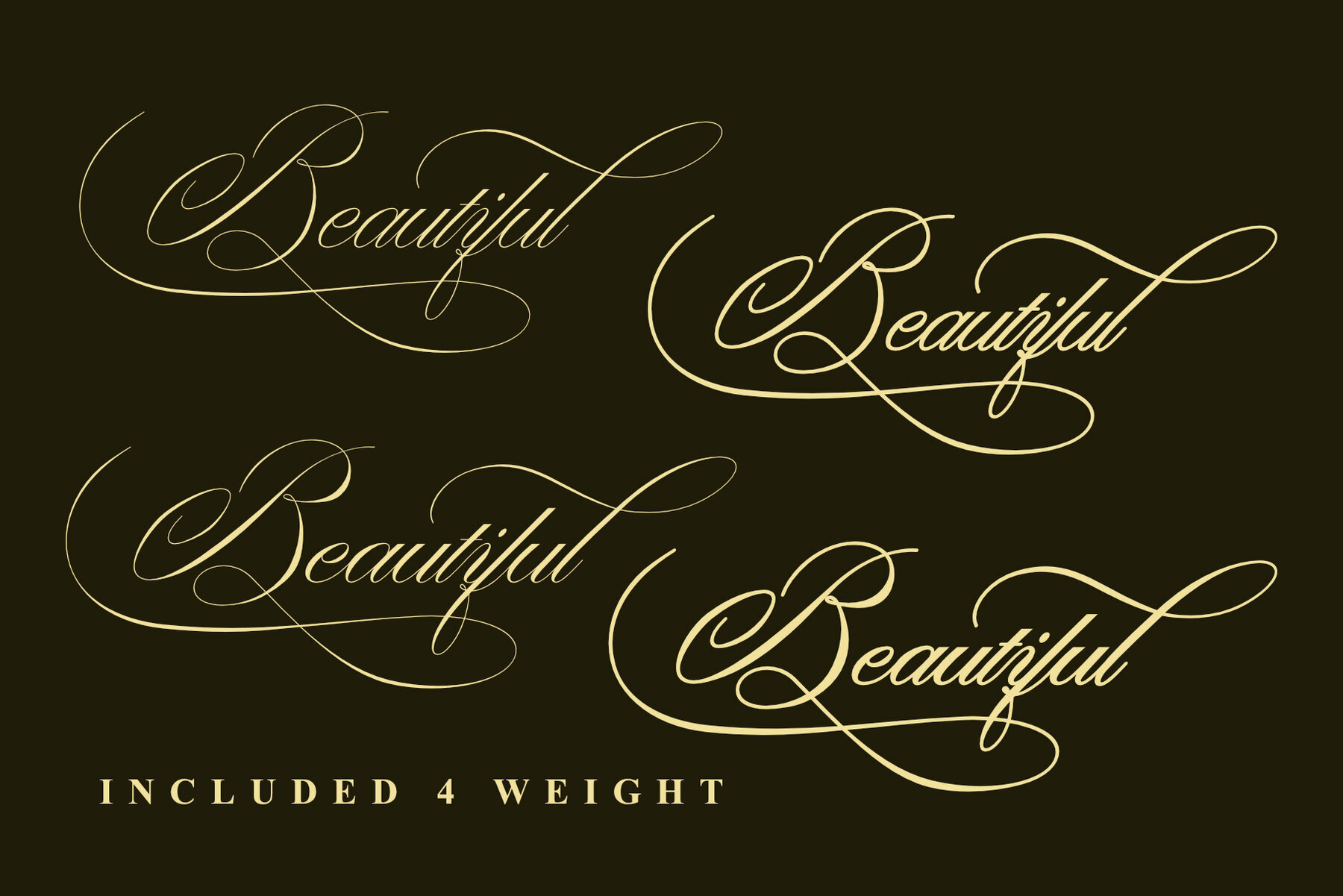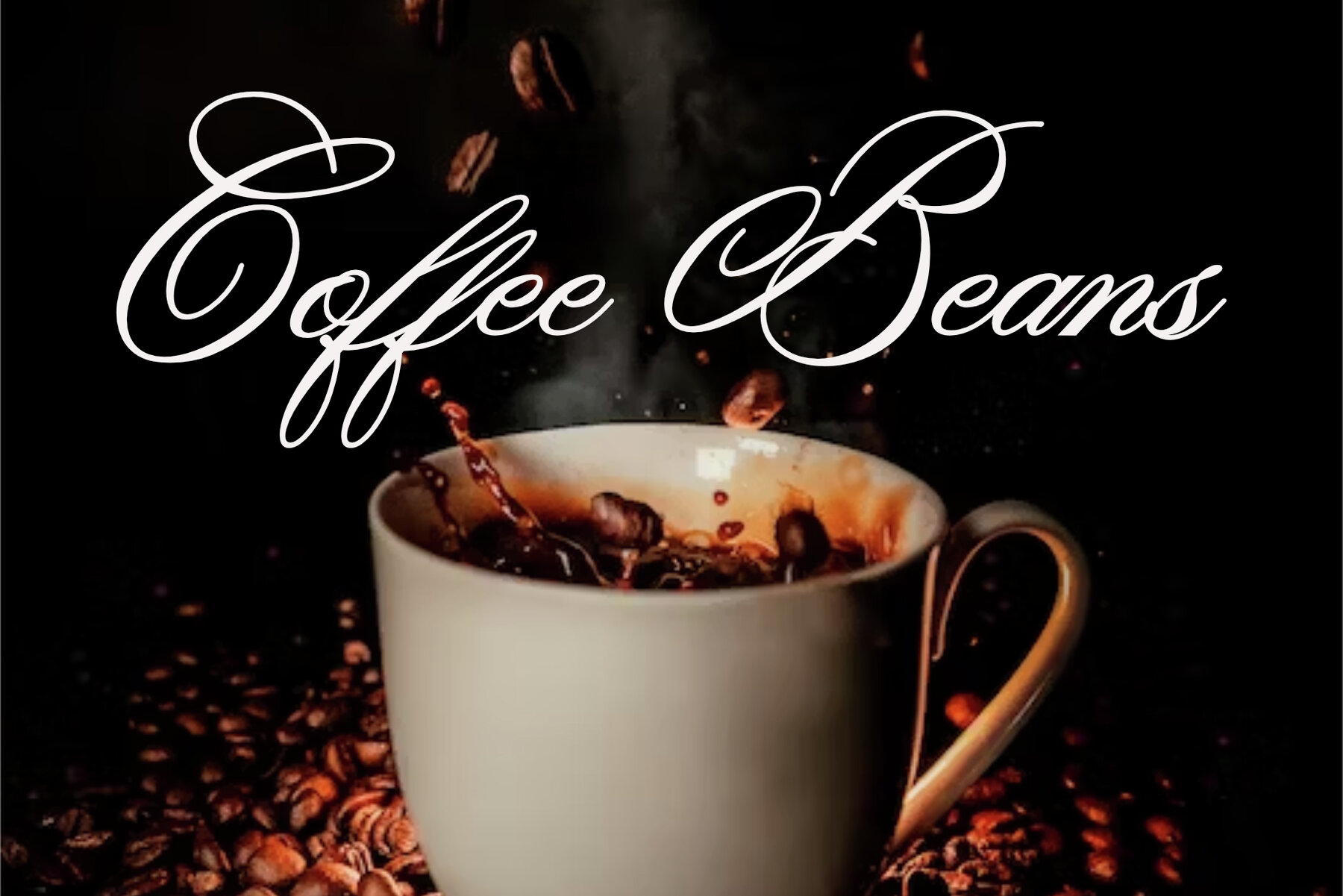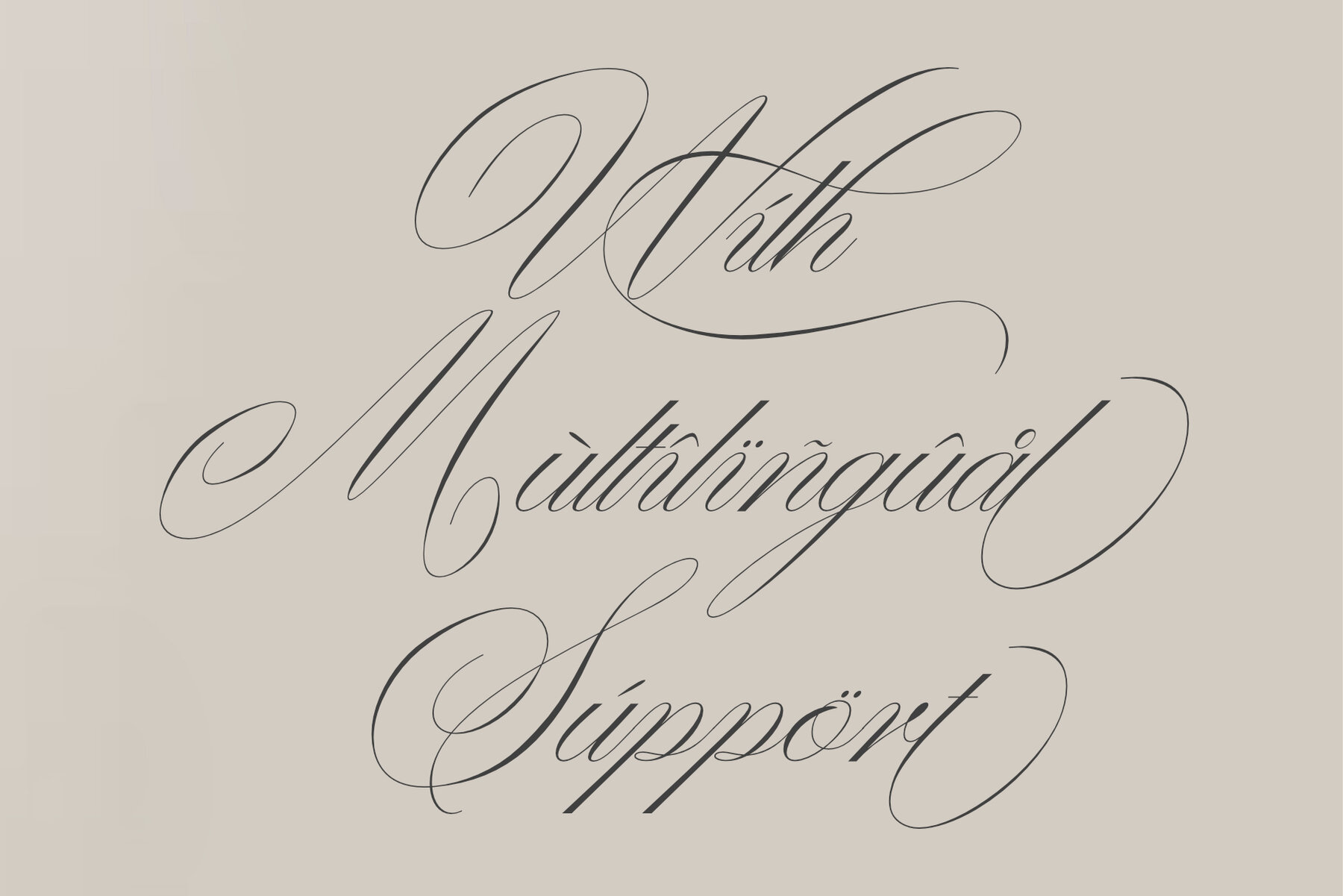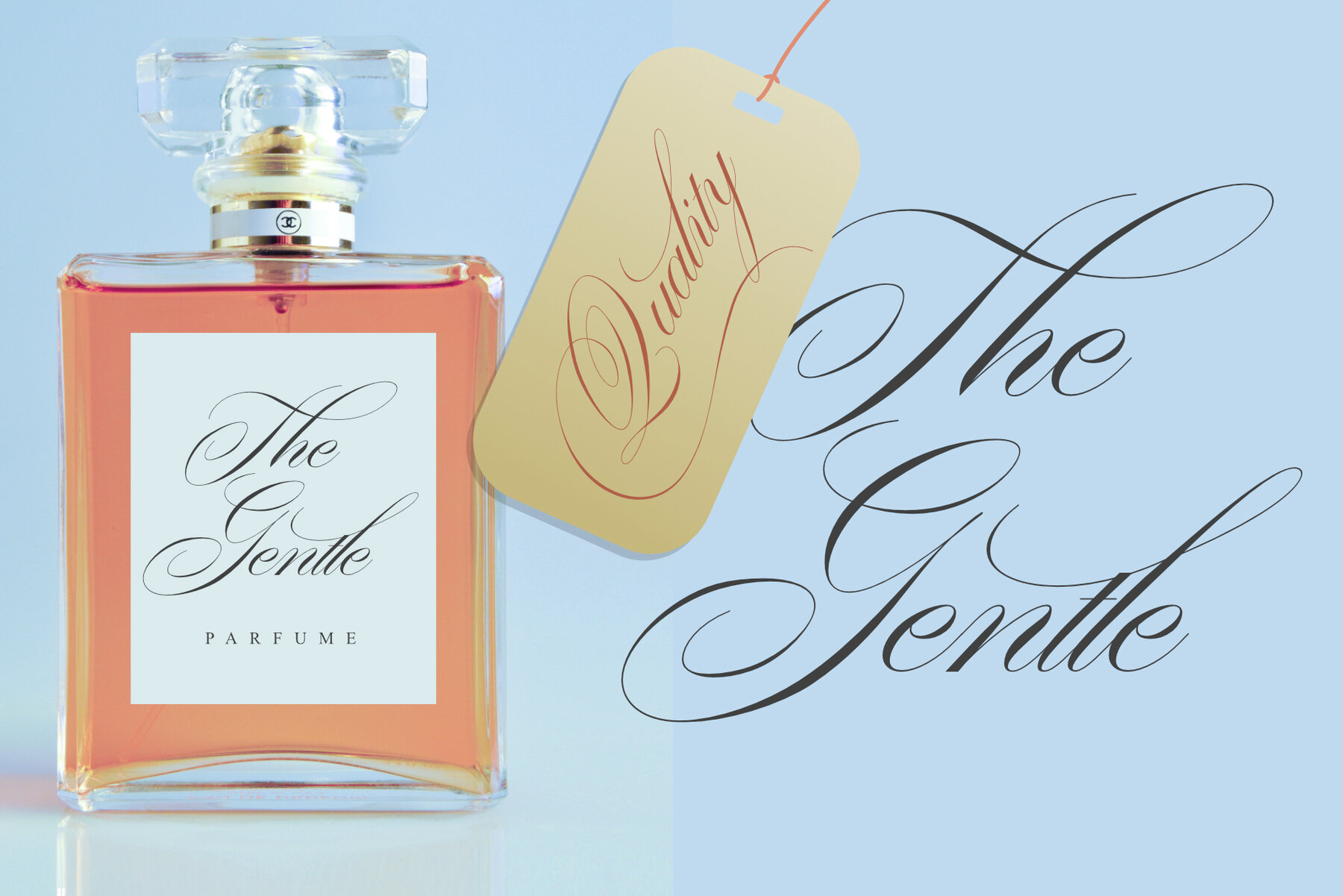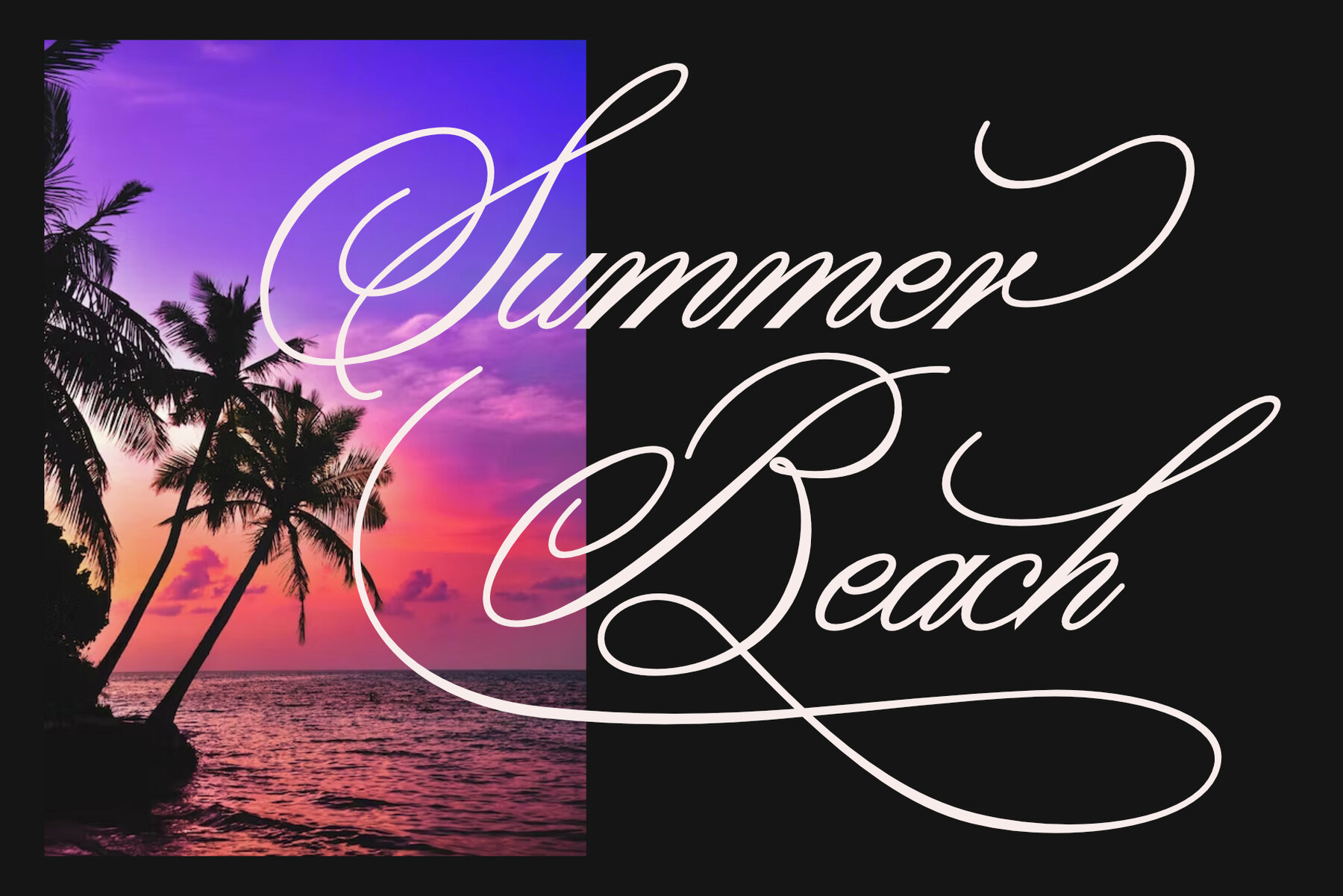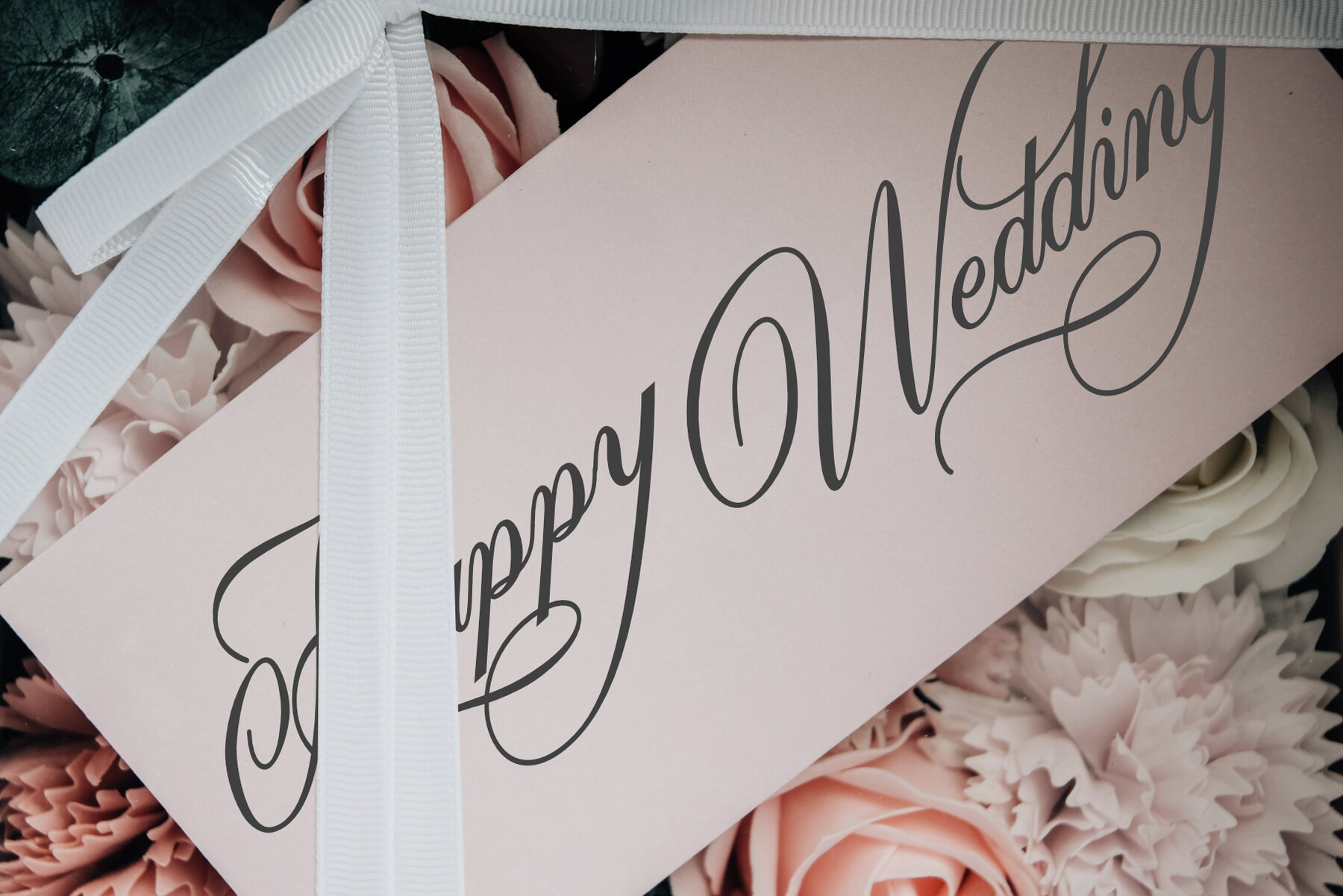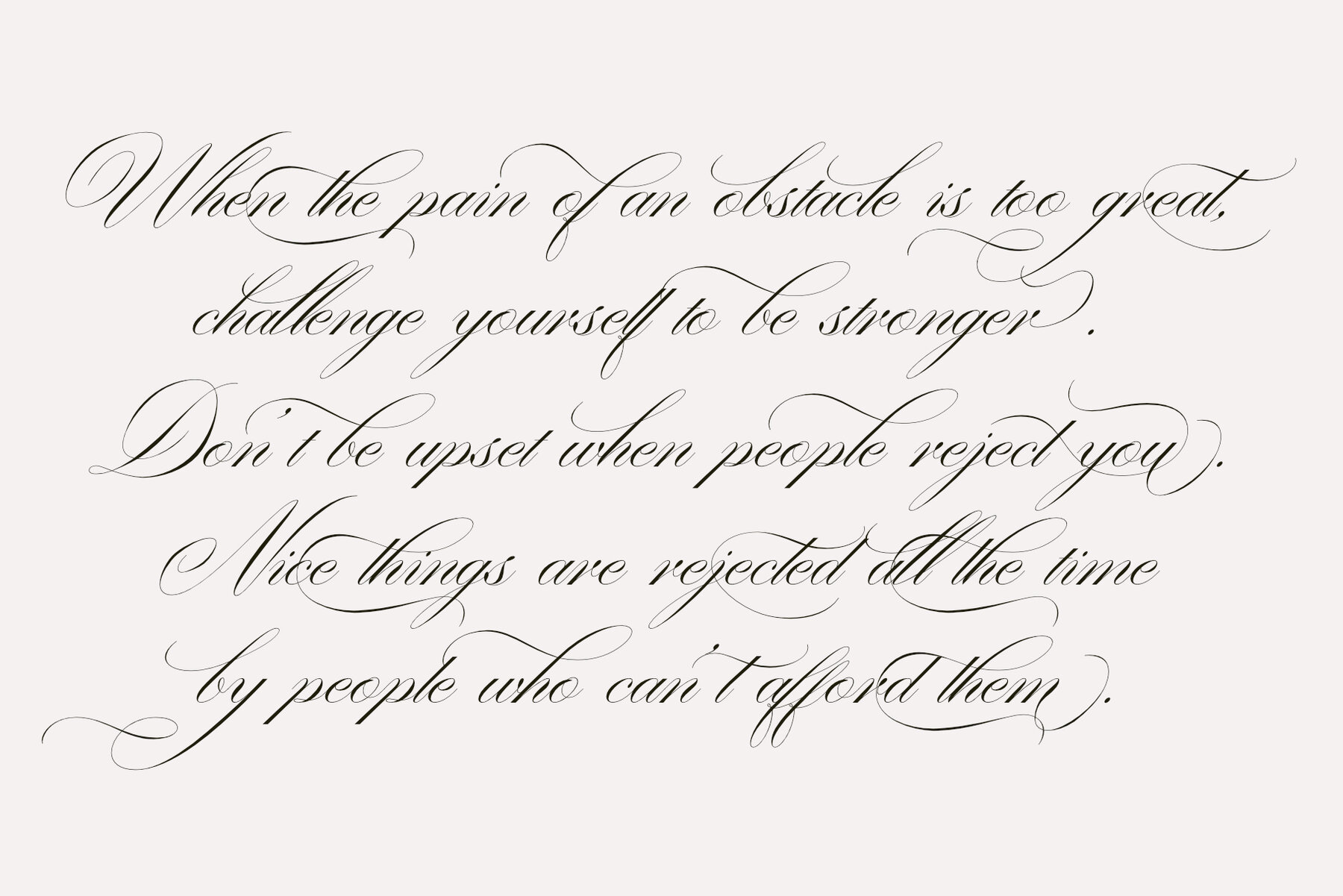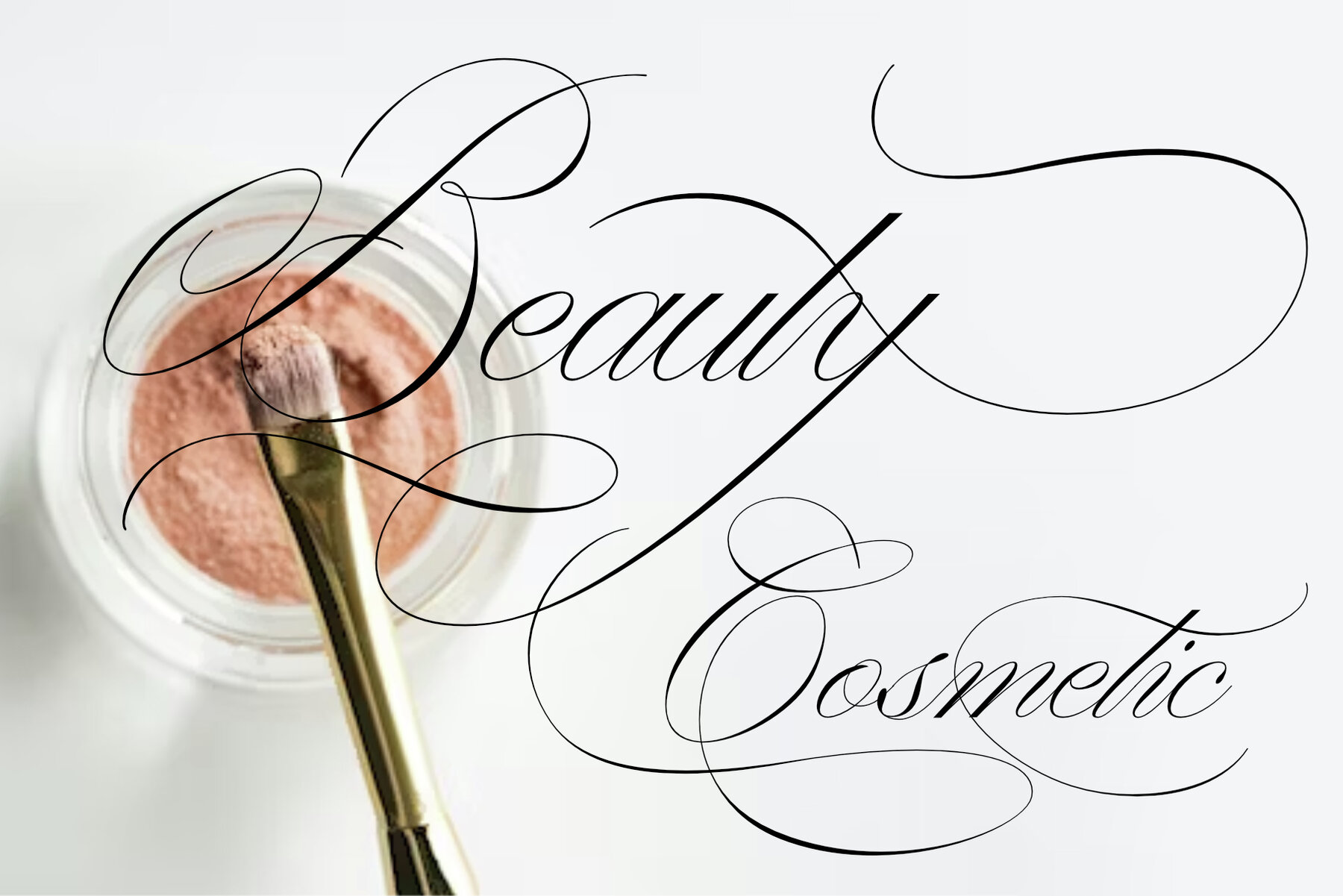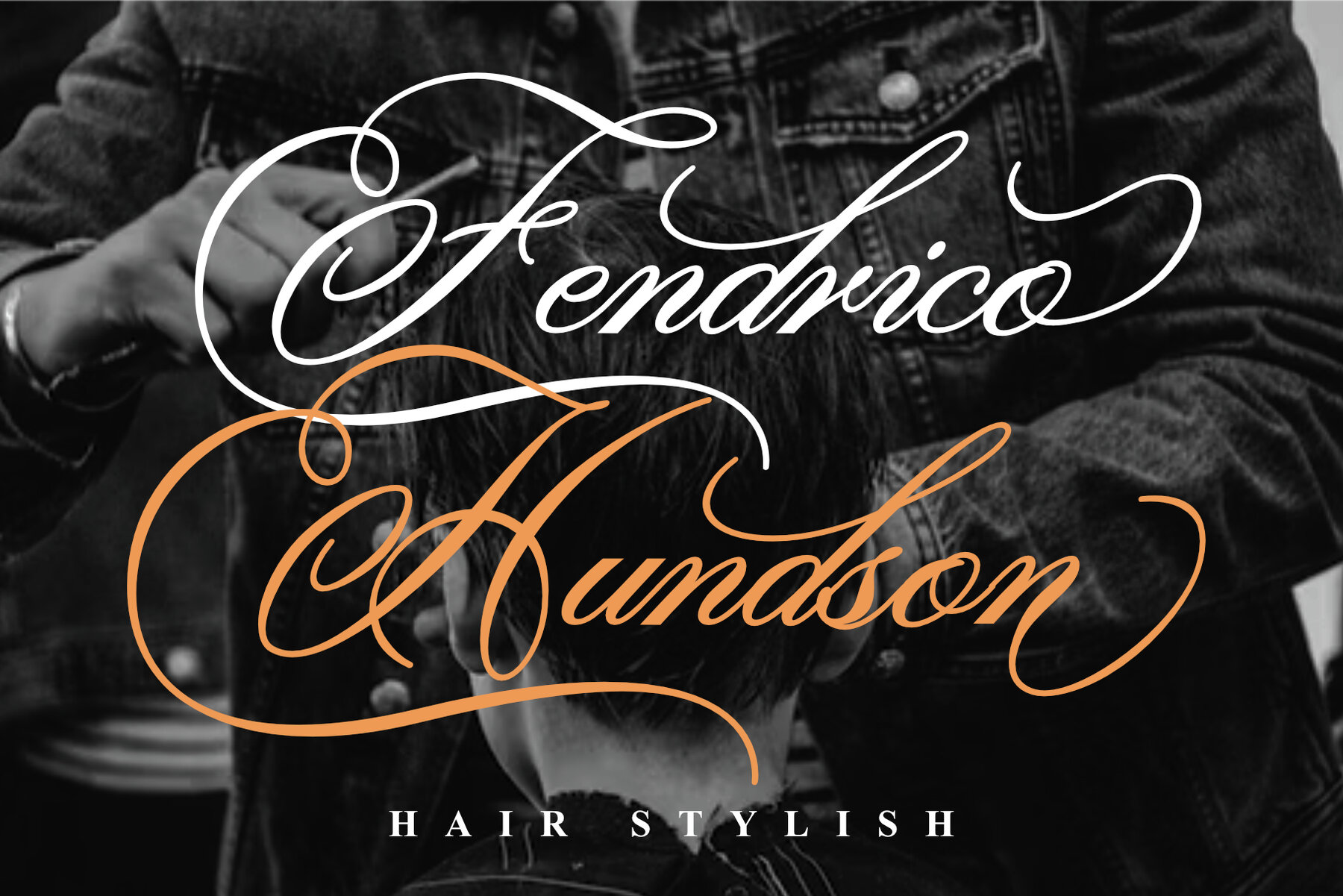
Waithson Font
Experience the elegance of traditional penmanship with Waithson, a calligraphy script that evokes the charm of early American handwriting and the beauty of Italian influences. This font elegantly combines classic style with a touch of modern sophistication, perfect for any formal, luxurious, or classic design projects. Waithson is crafted to be user-friendly, enabling designers of all levels to bring sophisticated and luxurious touches to their work. While it makes the most of OpenType capabilities in software like Adobe Illustrator, you can still access all its alternative characters using Font Book on Mac or Character Map on Windows.Waithson: Elegant Calligraphy Inspired by Classic Manuscripts